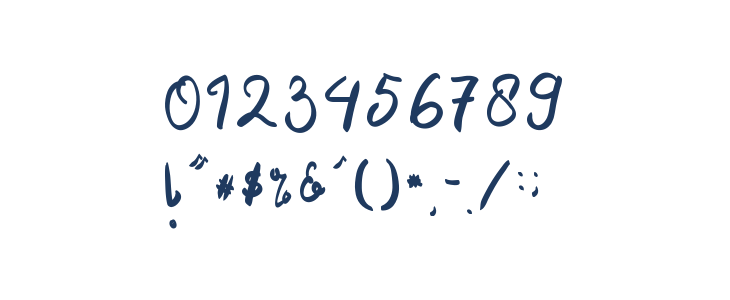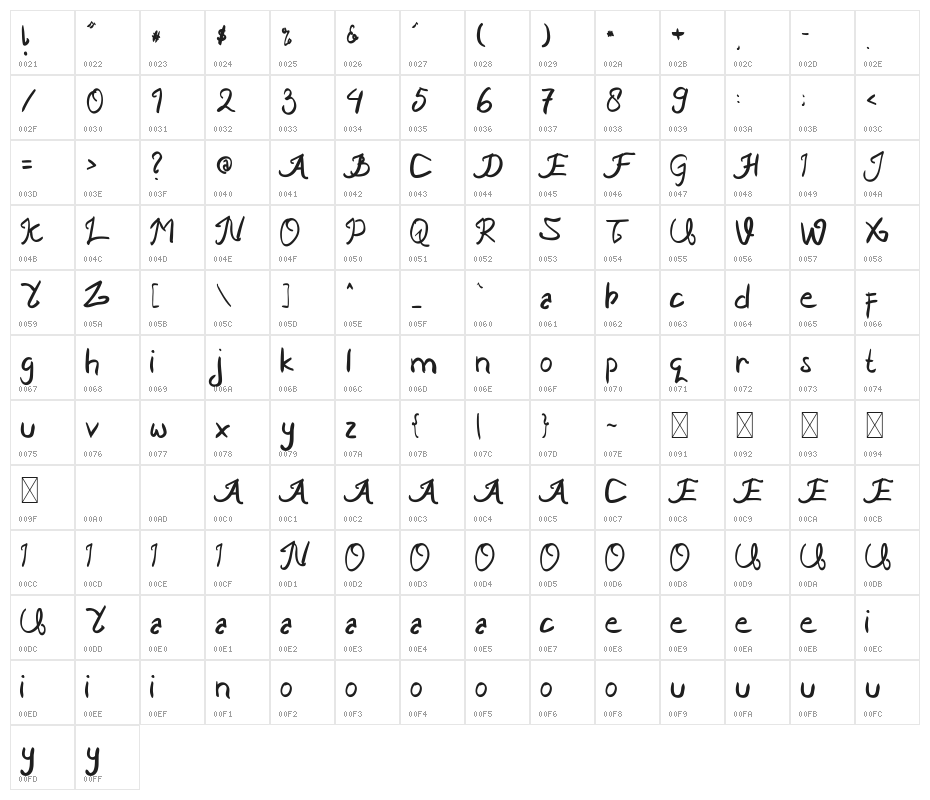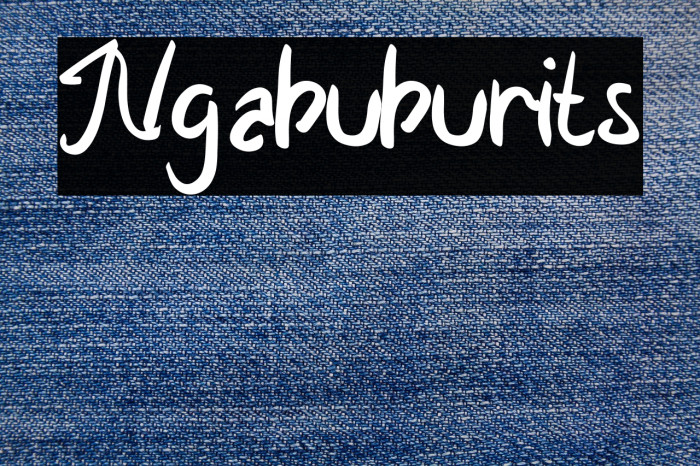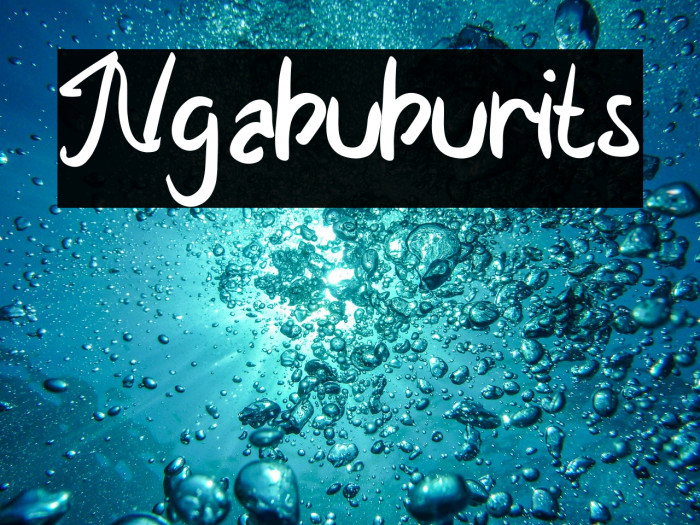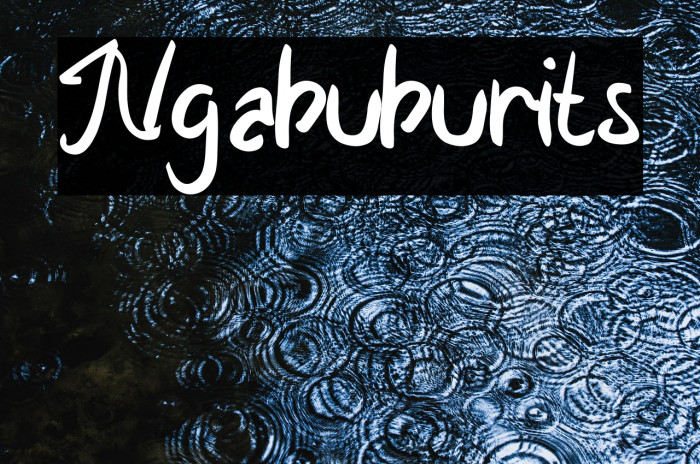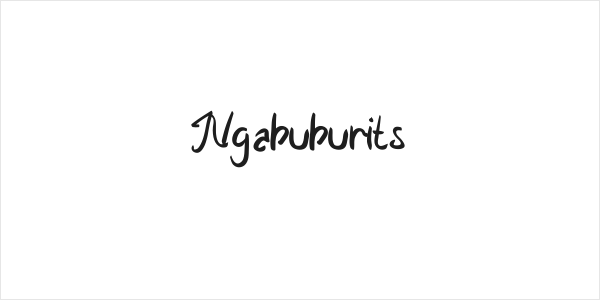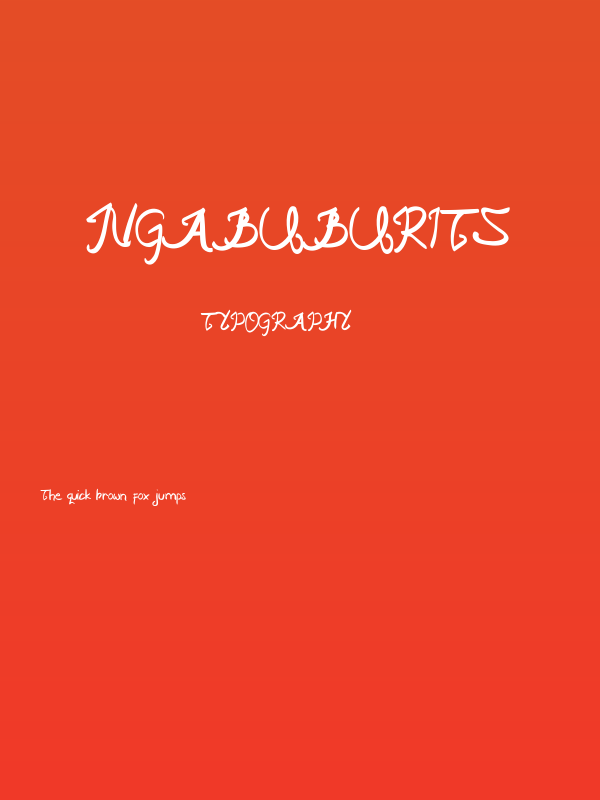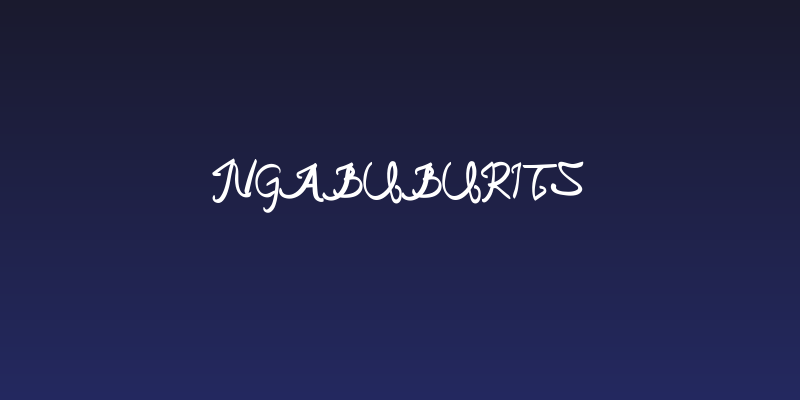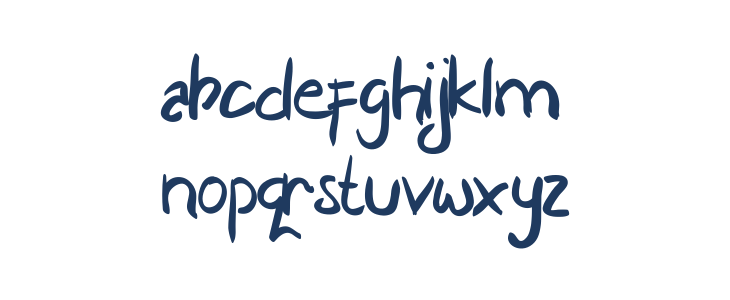
Ngabuburits Font
Ngabuburits Description
This font exudes a playful and dynamic energy with its handwritten style, characterized by fluid and slightly irregular strokes that mimic natural handwriting. The uppercase letters are bold and expressive, while the lowercase letters maintain a consistent flow, adding to the font's casual and approachable feel. The numerals are distinct and easy to read, complementing the overall style. Special characters are creatively integrated, maintaining the font's lively personality. This font is perfect for projects that require a personal touch or a sense of informality.
| Use Case | Logos, Headlines, Informal Text |
| Proposed Projects | Ideal for greeting cards, invitations, personal branding, and casual social media graphics. |